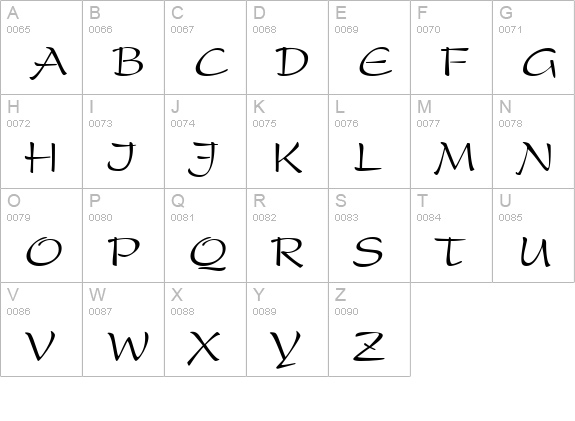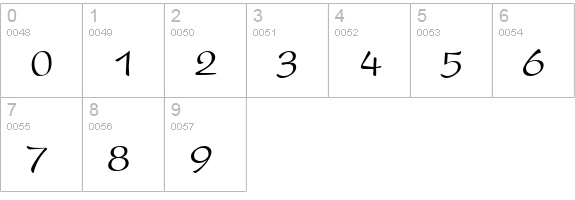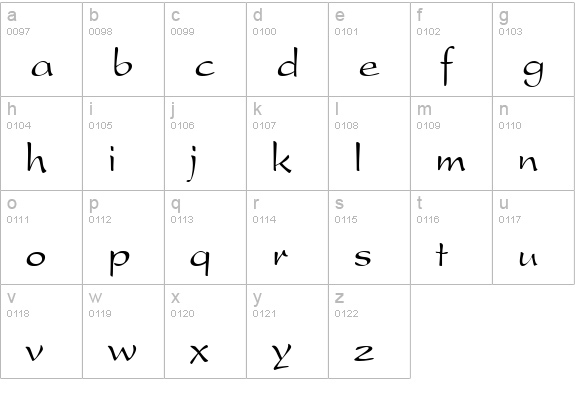
PrestonScript Regular Font Details
PrestonScript Regular is the standard, neutral variant in the PrestonScript typeface family \xE2\x80\x94 well suited to general body text, paragraphs, and standard typographic work.
PrestonScript Regular font is a beautifully crafted typeface that exudes elegance and sophistication. With its flowing script style and delicate curves, this font is perfect for adding a touch of class to your projects. Whether you're designing invitations, logos, or branding materials, PrestonScript Regular will bring a touch of charm and refinement to your work. The best part? PrestonScript Regular font is completely free to download at FontsMarket.com. This means you can access this stunning font at no cost and use it in your projects without any restrictions. Don't miss out on this amazing opportunity to enhance your designs with PrestonScript Regular font - download it today and elevate your work to the next level.